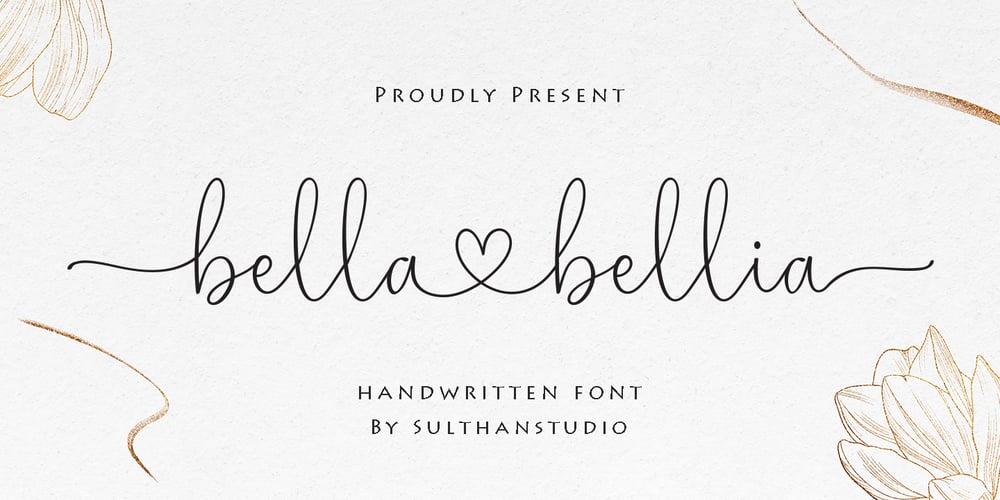
Bella Bellia Font Family was designed by Nasrullah and published by Sulthan Studio. Bella Bellia contains 1 styles and family package options. Bella bellia-This handwritten script font is very light to use with a heart that can be connected, of course it will make it more beautiful when two words are combined.It is perfect for branding, event invites, lovely Instagram postsBella bellia-includes many alternative characters. Coded with Unicode PUA, which allows full access to all additional characters without having special design software. Mac users can use Font Book. Windows users can use the Character Map to view and copy one of the additional characters to paste into your favorite text editor. For people who have opentype-capable software: Alternatives can be accessed by turning on the “Alternative Style” and “Ligature” buttons on the Photoshop Character panel, or through any software with the glyph panel, e.g. Adobe Illustrator, Photoshop CC, Inkscape.